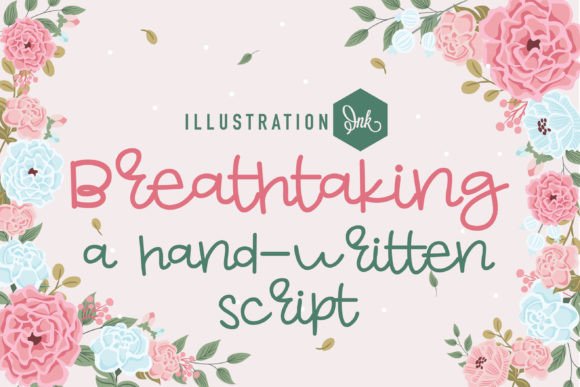
Captivating. Alluring. Enchanting. Breathtaking.
The Breathtaking Font Family seizes every word with grace. Each character is a brushstroke of beauty, meticulously crafted to intertwine art and language in harmonious unity. Unleash your creativity and embark on a typographic expedition where elegance meets expression.
Born from the artistry of Illustration Ink, this script font family dances across the page with a whimsical flair. Experience the youthful exuberance encapsulated in its hand-crafted design, where uppercase letters stand tall like elegant monoliths, commanding attention with their stately presence.
Designers and typographers, immerse yourselves in the versatility of Breathtaking. With its wide range of weights and styles, this font family is your trusted companion, adapting seamlessly to your creative vision. Craft logos that exude sophistication, weave headlines that ignite curiosity, and shape invitations that promise an unforgettable experience.
For those seeking distinction in their digital presence, the Breathtaking Font Family beckons you. Elevate your branding to new heights, drawing eyes with the sheer allure of your words. Engage your audience with captivating social media posts, captivating website designs, and marketing materials that leave a lasting impression.
In a world clamoring for attention, stand out with the eloquence of Breathtaking. Embrace the beauty of hand-crafted typography and let your words dance with unfettered grace.